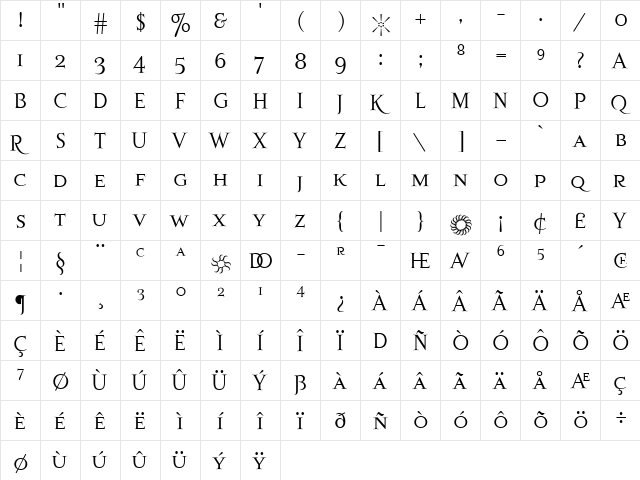
Kartago Regular Font Preview
Kartago Regular
Kartago Regular Font Details
| Foundry | Dino dos santos _ DSType, |
Design Context for Kartago Typeface
Kartago takes a measured approach to typography — its balanced proportions and neutral character make it a reliable workhorse for both digital and print work.